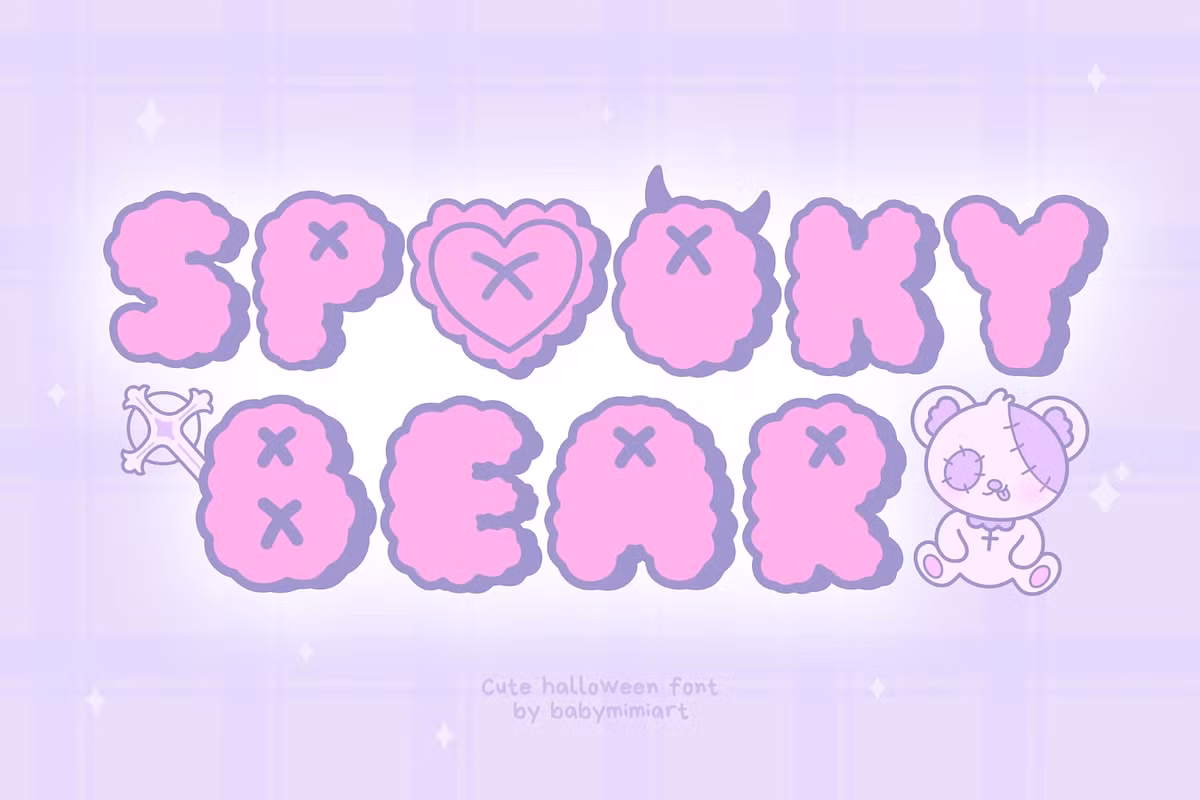
Spooky Bear Font Free Download is a fun and creepy-cute typeface designed to add a playful fright to your creative projects. With quirky letterforms and a spooky twist, Spooky Bear is perfect for Halloween posters, kids' party invitations, themed merchandise, haunted house signage, and social media graphics. It strikes the perfect balance between eerie and adorable.
With its hand-drawn, cartoon-inspired style, Spooky Bear Font Free Download brings lighthearted horror vibes to any layout. The font’s playful curves and subtle spooks make it great for both young audiences and seasonal branding. Whether you're crafting a festive product label or designing a spooky event flyer, Spooky Bear adds personality and flair.
Try out the free version to get a feel for its fun, frightful energy. Spooky Bear is a must-have font for designers looking to mix charm with chills — perfect for turning any project into a spooky celebration.